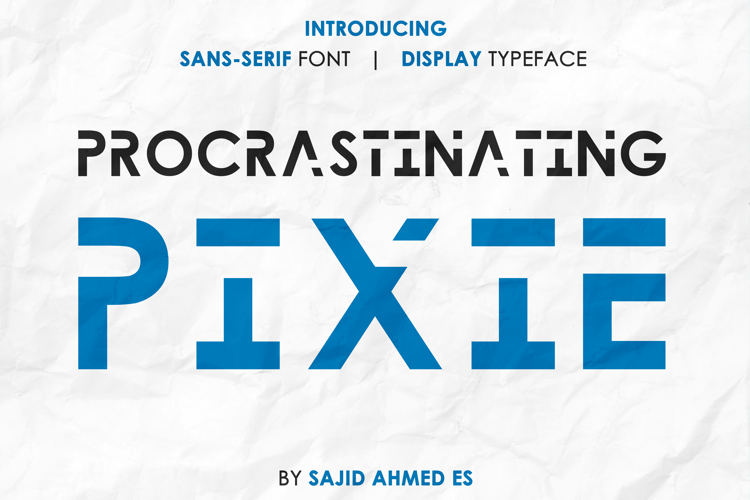
Procrastinating Pixie Font
Meet Pixie,
She ended up Procrastinating
a bit more and here is a look
to what happens to fonts when
pixels end up late for work.
By Sajid Ahmed ES